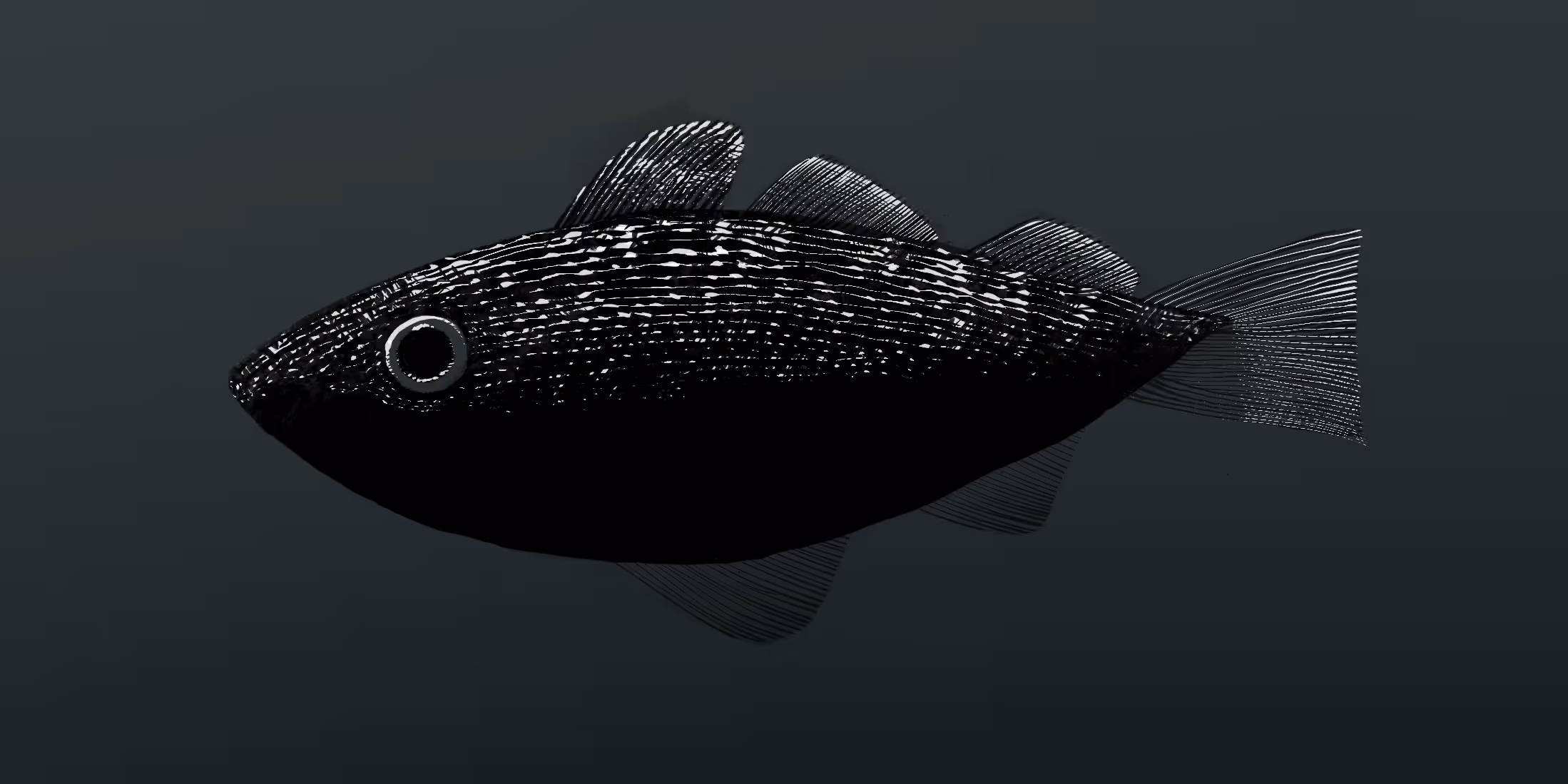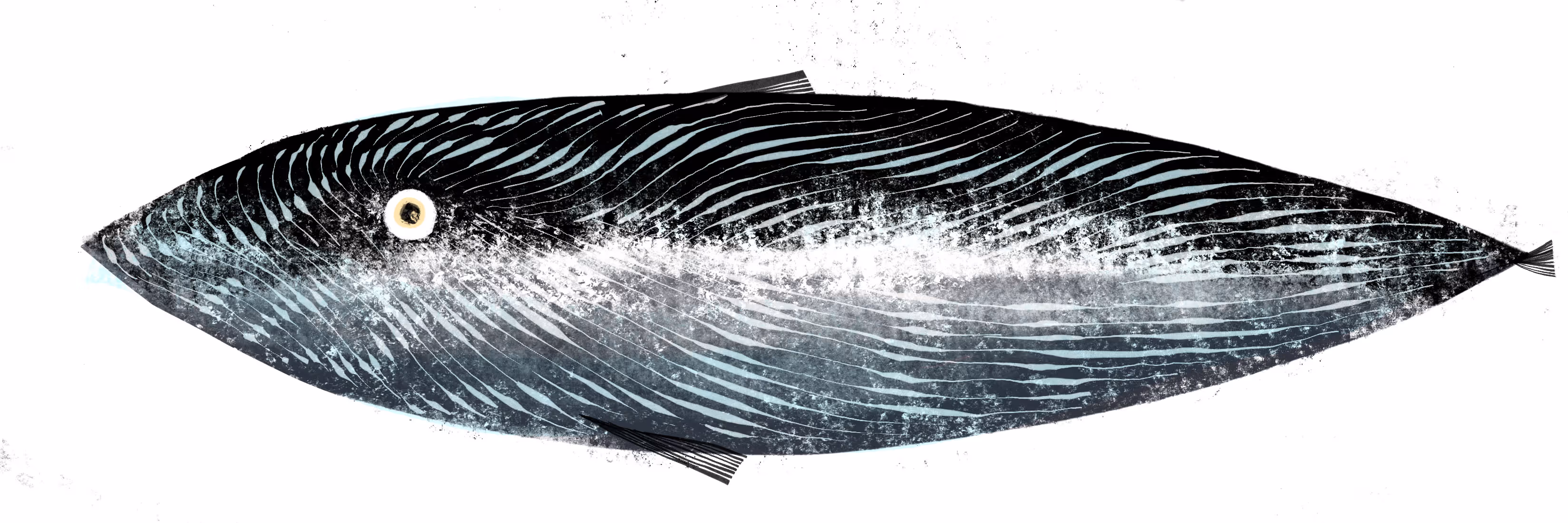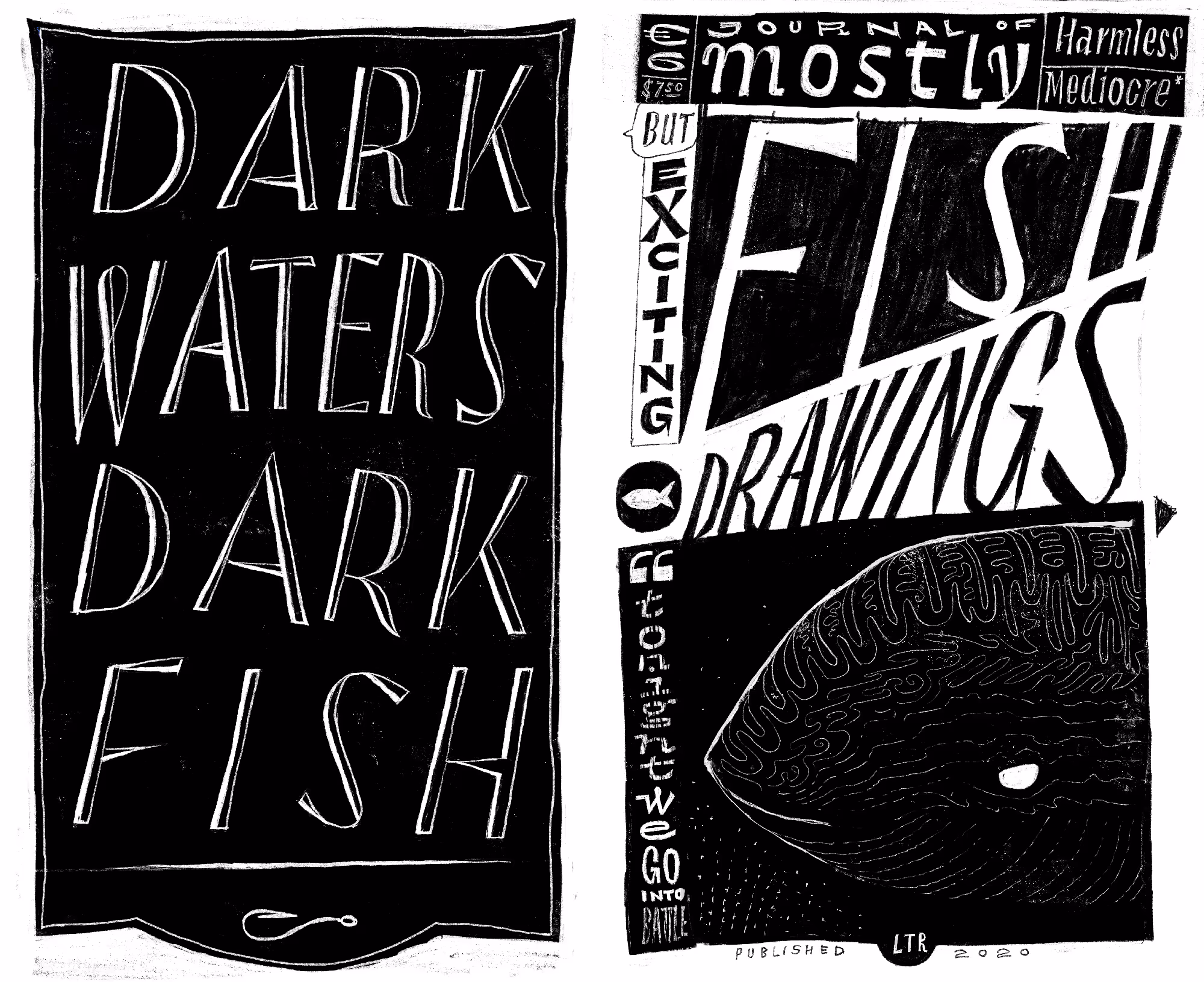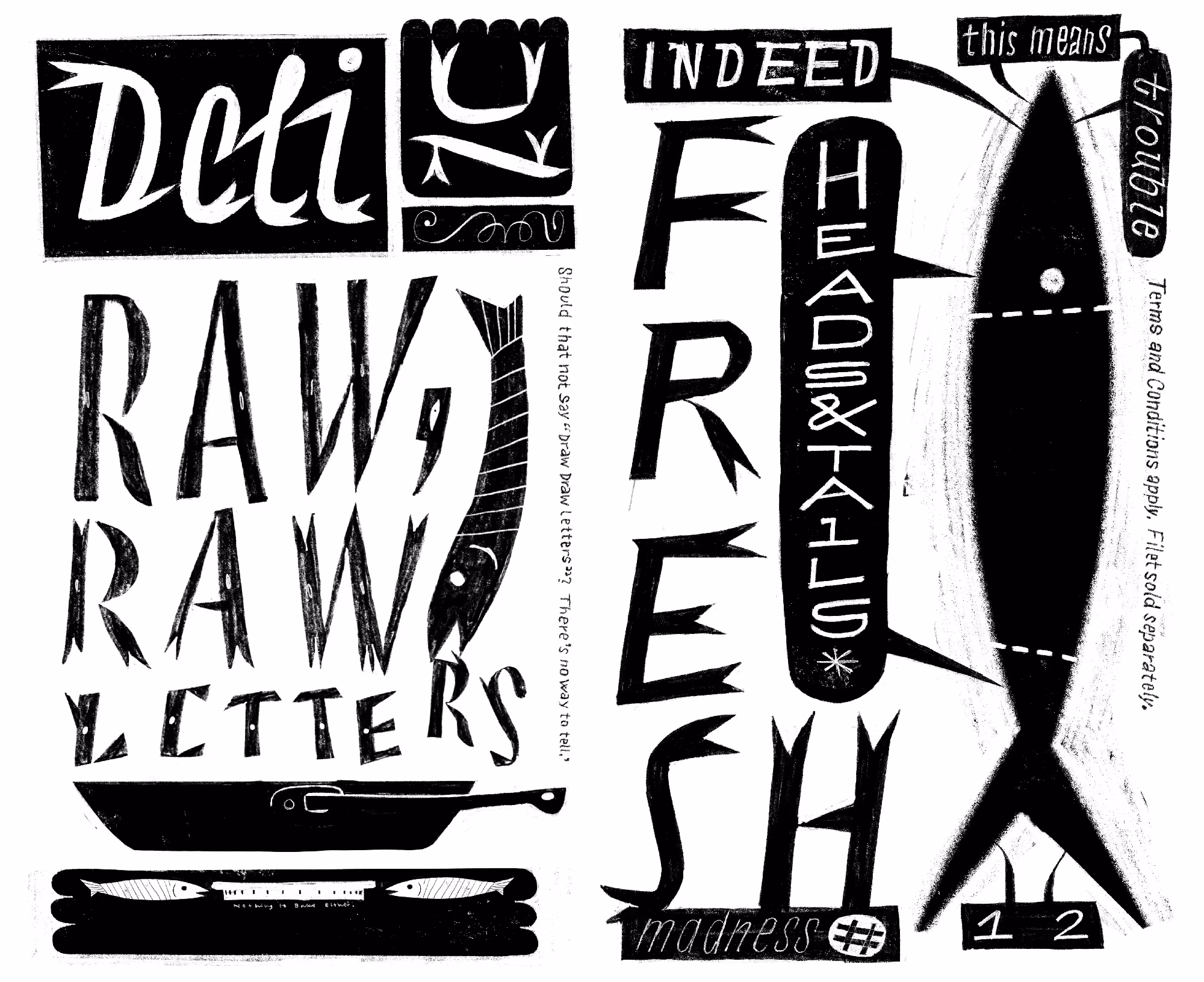
Drawing/Fish
Fish Studies
It is not difficult to make a drawing that looks like a fish. And then there are infinite variations and segues into lettering. The bifurcating tails ask for Tuscan serifs, don’t they.
So, why present work online when it will all just be consumed by machines that turn it into expensive tokens? You’re here, reading this. So there is some hope. The lettering in these drawings are also where the new ideas come from. So I think it would be fun to see them.